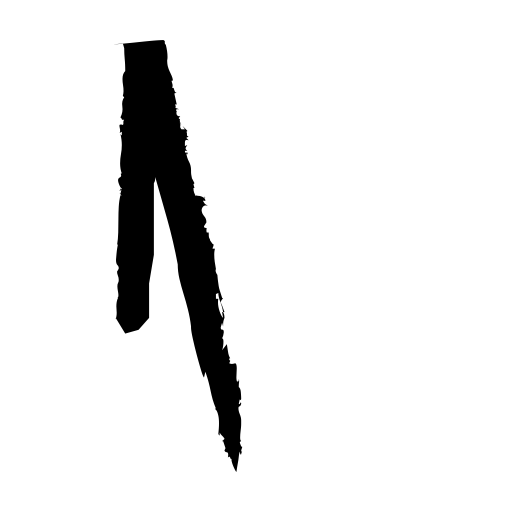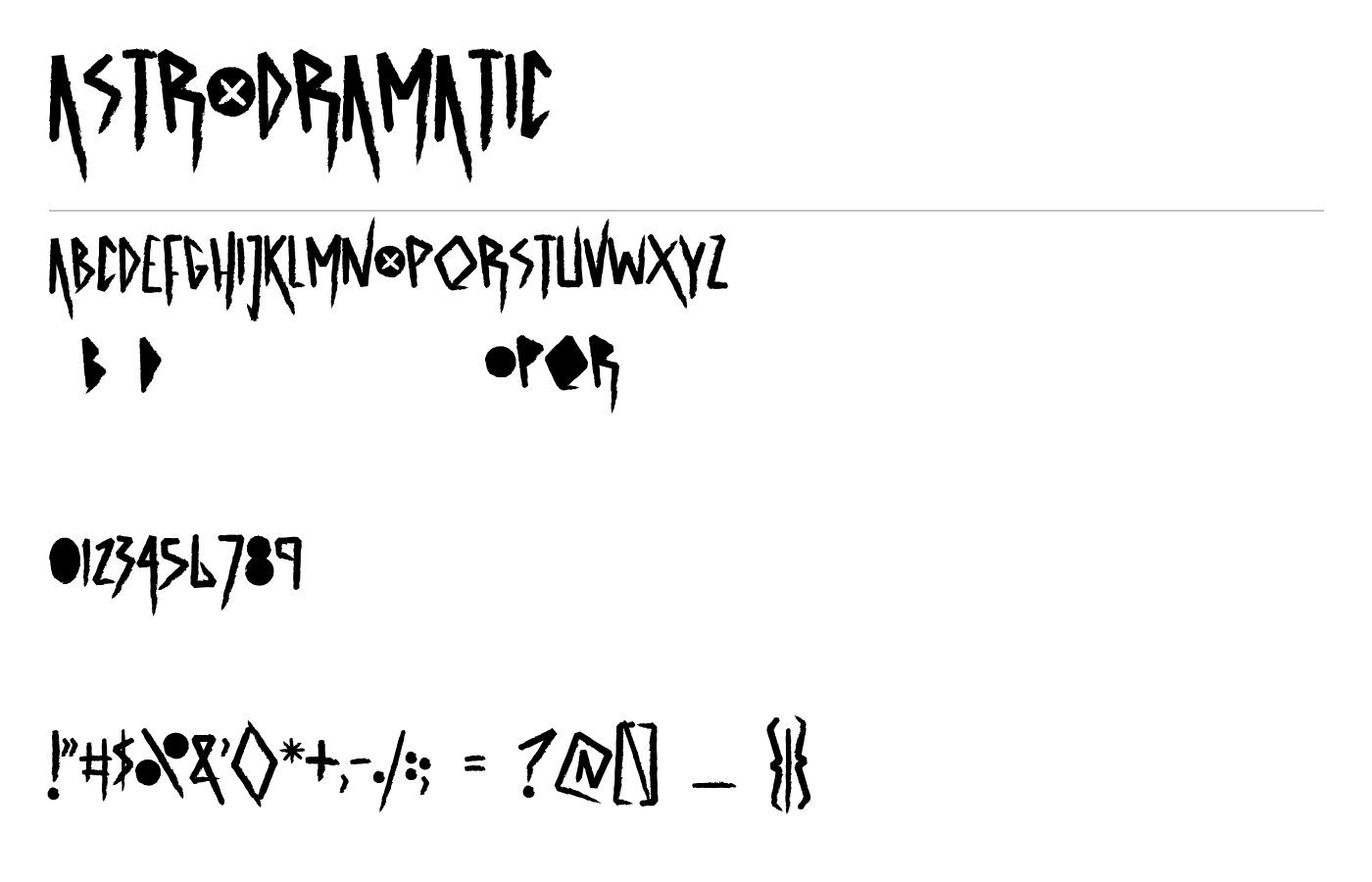
Astrodramatic is a bold, condensed display font with a rough, hand-drawn style that feels edgy and intense. Its sharply pointed, irregular letterforms and uneven strokes give it a dramatic, almost otherworldly vibe, perfect for creating striking headlines and branding with a rebellious or mysterious personality. This font works best for posters, logos, and designs that want to convey energy and a strong visual impact.
ASTRODRAMATIC Font